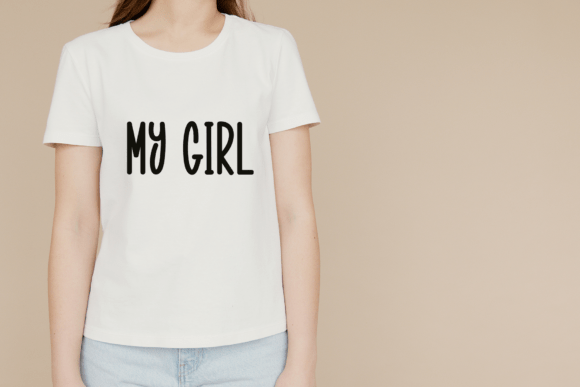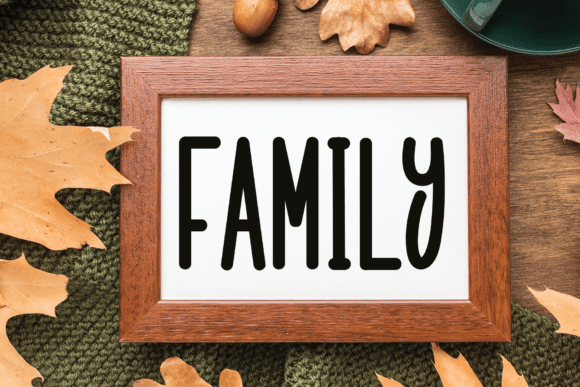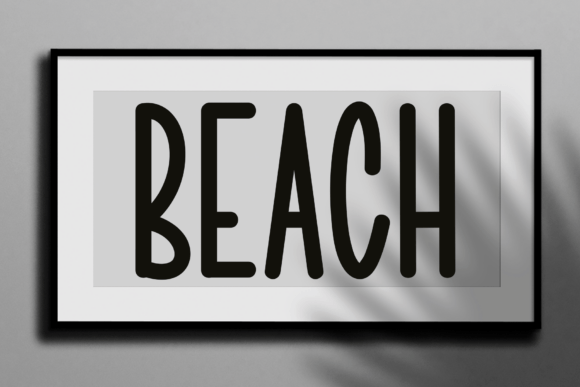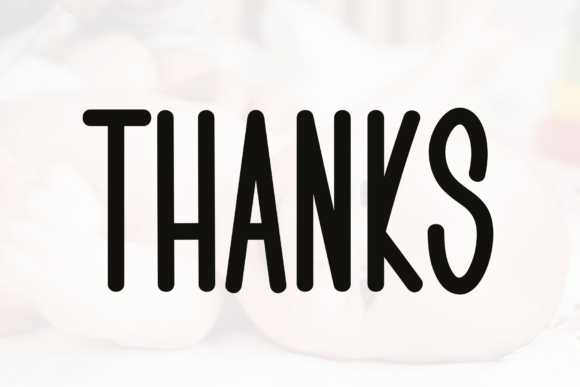
Baby Boho Font: The Perfect Choice for Designers and Crafters
In the world of typography, fonts play a crucial role in conveying emotions and setting the tone for a design project. If you’re a designer or crafter looking for a font that exudes a sense of warmth and perfection, look no further than the Baby Boho Font. This charming handwritten display font is filled with a sense of heartfelt perfection, making it perfect for a variety of design projects.
The Characteristics of Baby Boho Font
Baby Boho Font is a beautifully crafted font that features smooth strokes and organic lines. These characteristics evoke a relaxed atmosphere, making it perfect for designs that require a touch of elegance and sophistication. The font’s handwritten nature gives it a personal and intimate feel, making it ideal for projects that require a human touch.
Uses of Baby Boho Font
Baby Boho Font is a versatile font that can be used for a variety of design projects. Here are some of the ways you can use this font:
- Branding: Use Baby Boho Font to create a unique and memorable brand identity. The font’s elegant and sophisticated nature makes it perfect for logos, business cards, and other marketing materials.
- Invitations: Create beautiful and eye-catching invitations for special occasions such as weddings, baby showers, and birthday parties. The font’s handwritten nature gives it a personal touch, making it perfect for invitations and other personal events.
- Social Media Graphics: Use Baby Boho Font to create stunning social media graphics that will grab the attention of your followers. The font’s smooth strokes and organic lines make it perfect for creating graphics that require a touch of elegance and sophistication.
- Crafting: If you’re a crafter, you can use Baby Boho Font to create beautiful and unique craft projects such as handmade cards, gift tags, and other paper crafts.
Why Choose Baby Boho Font?
There are several reasons why you should choose Baby Boho Font for your design projects. Here are some of the benefits of using this font:
- Unique and Memorable: Baby Boho Font is a unique and memorable font that will set your design projects apart from the rest. Its elegant and sophisticated nature makes it perfect for designs that require a touch of class and elegance.
- Easy to Read: The font’s smooth strokes and organic lines make it easy to read, even at small sizes. This makes it perfect for designs that require a lot of text, such as blog posts and articles.
- Versatile: Baby Boho Font is a versatile font that can be used for a variety of design projects. Its elegant and sophisticated nature makes it perfect for designs that require a touch of elegance and sophistication.
- High-Quality: Baby Boho Font is a high-quality font that is designed to look great on any device. Its smooth strokes and organic lines make it perfect for designs that require a touch of elegance and sophistication.
Tips for Using Baby Boho Font
Here are some tips for using Baby Boho Font in your design projects:
- Use it Sparingly: Baby Boho Font is a elegant and sophisticated font that should be used sparingly. Use it for headings and titles, and pair it with a simpler font for body text.
- Pair it with Other Fonts: Baby Boho Font can be paired with other fonts to create a unique and memorable design. Try pairing it with a sans-serif font for a modern look, or with a serif font for a more traditional look.
- Experiment with Colors: Baby Boho Font looks great in a variety of colors. Experiment with different colors to find the one that works best for your design project.